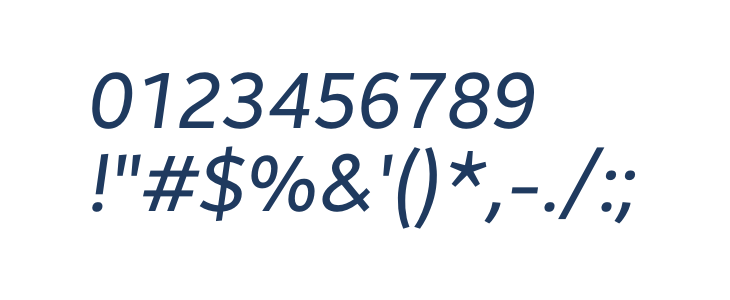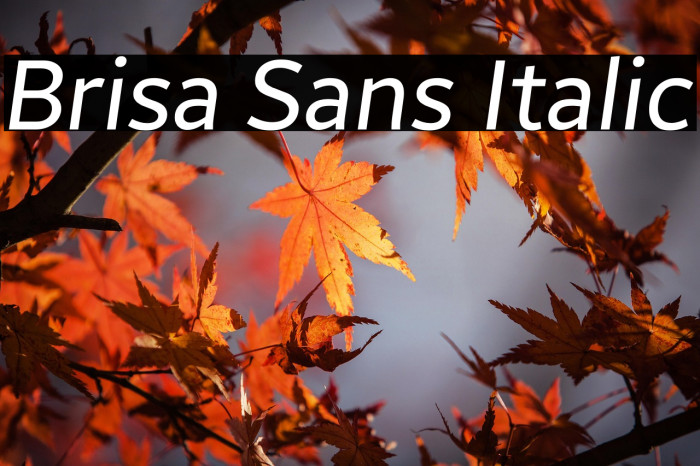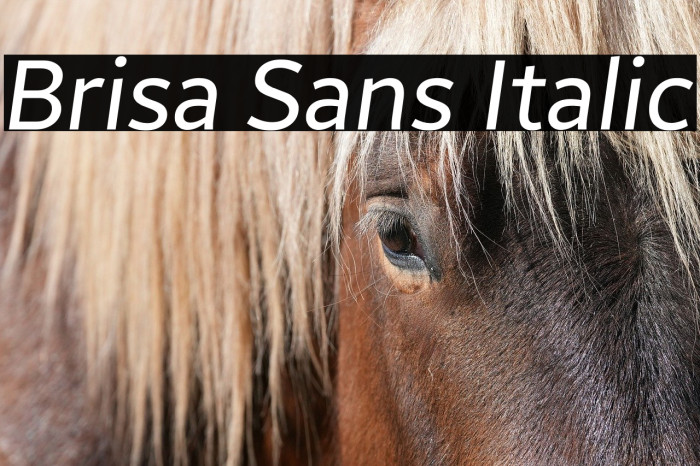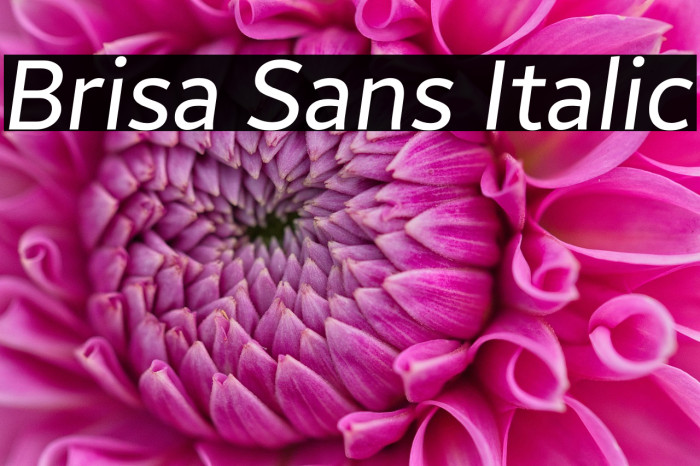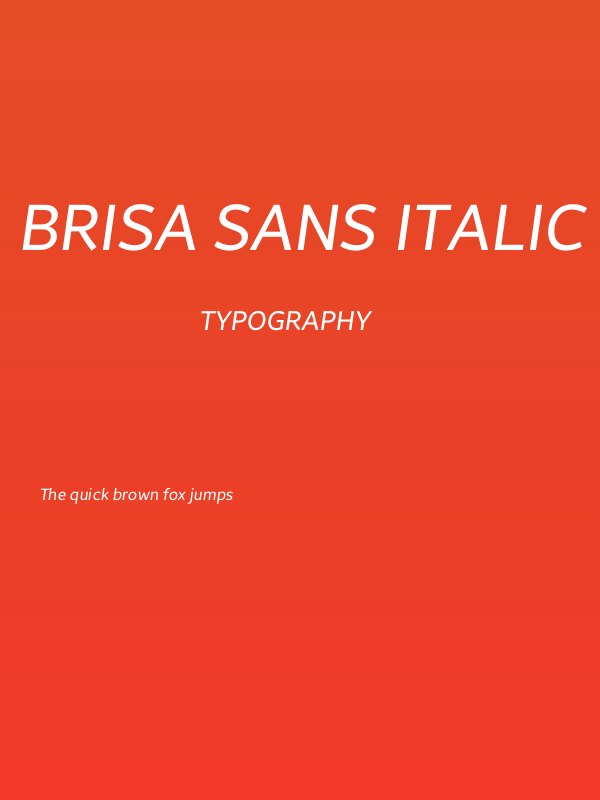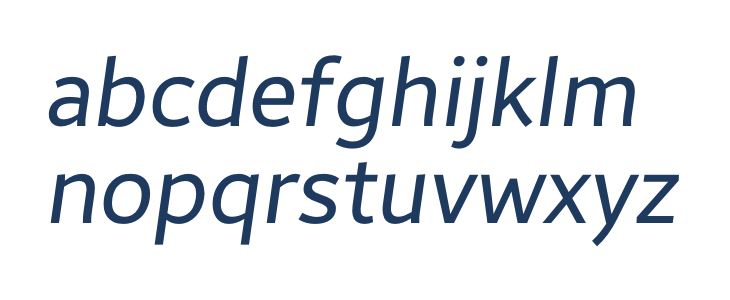
Brisa Sans Italic Font
Brisa Sans Italic Description
This font features a clean and modern sans-serif design with a slight italic slant, giving it a dynamic and elegant appearance. The characters are well-proportioned, with smooth curves and sharp edges that enhance readability. The uppercase letters are bold and assertive, while the lowercase letters maintain a friendly and approachable feel. Numbers are clear and distinct, making them suitable for both display and text purposes. The special characters are designed with the same attention to detail, ensuring consistency across all glyphs.